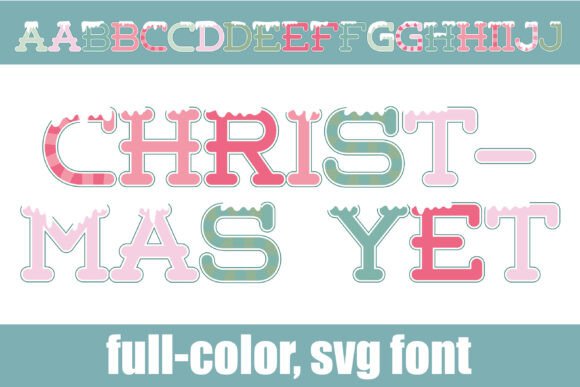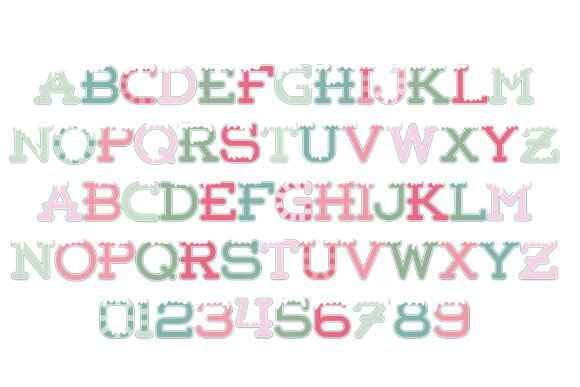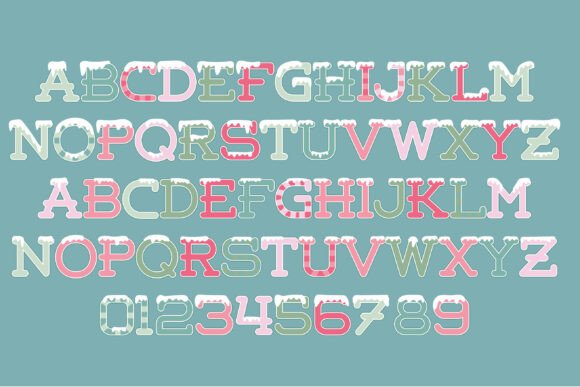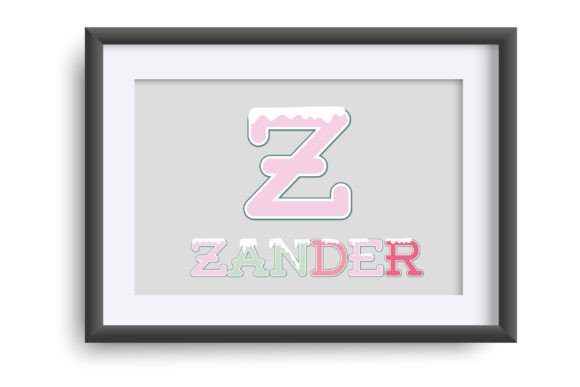
Christmas Yet Font
About the Christmas Yet Font
The wait is over! The incredible Christmas Yet Font is now available for your design toolkit. This full-color font features a hipster serif font in a Christmas color palette covered in snow. There is an alt version you can access through your system’s character map that contains additional colors of all the letters. This font works best for titles, displays, posters and more. Please note color fonts will show as black in non compatible programs. This font type is compatible with Silhouette Studio.